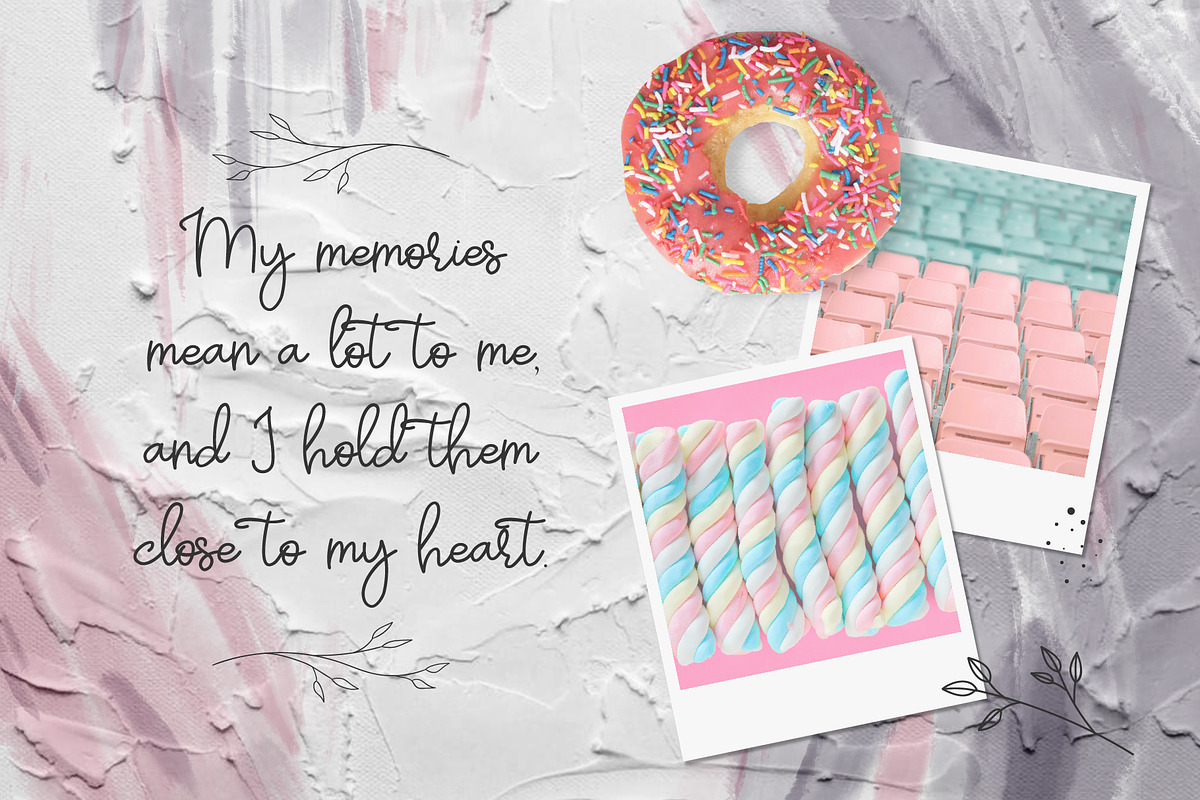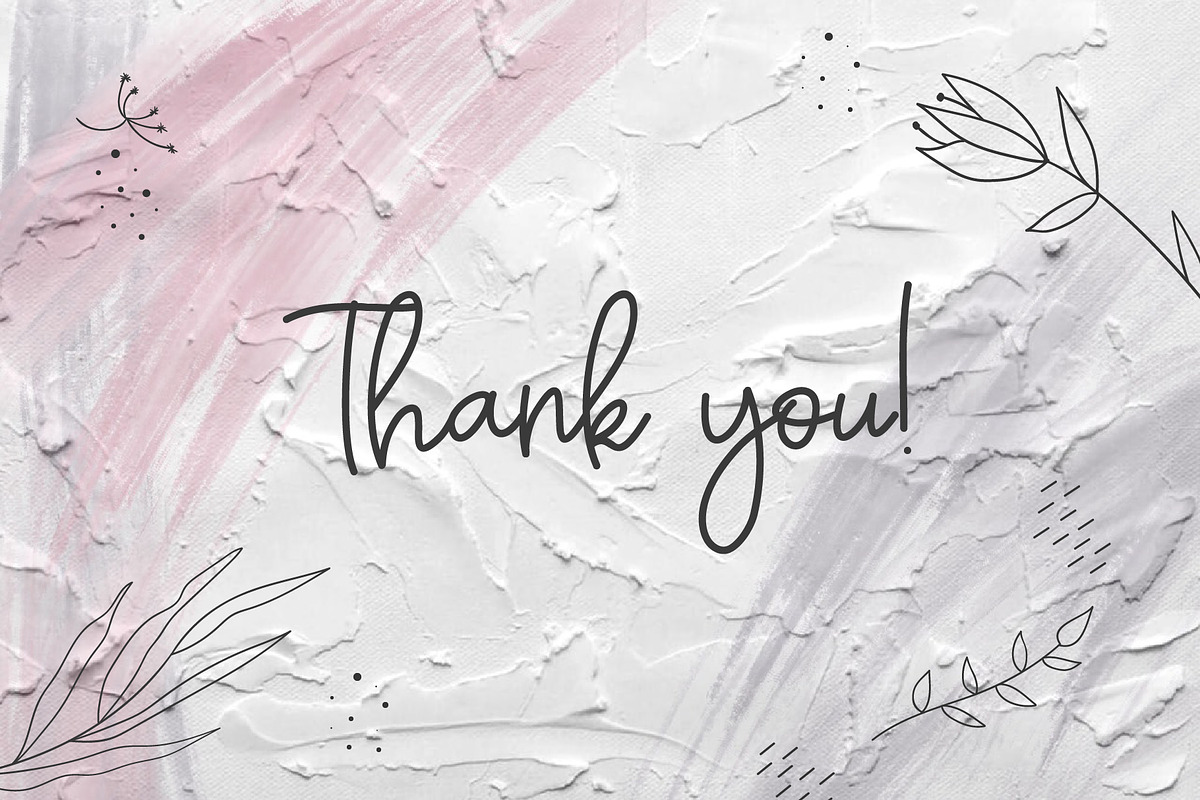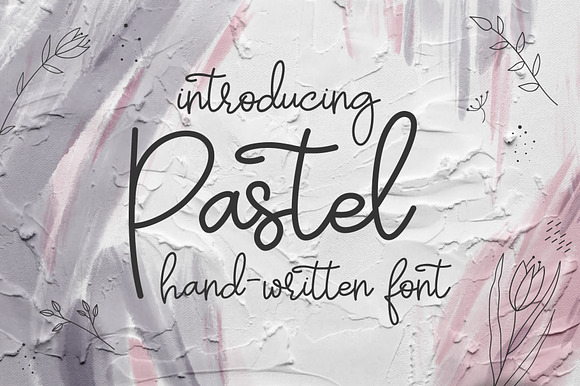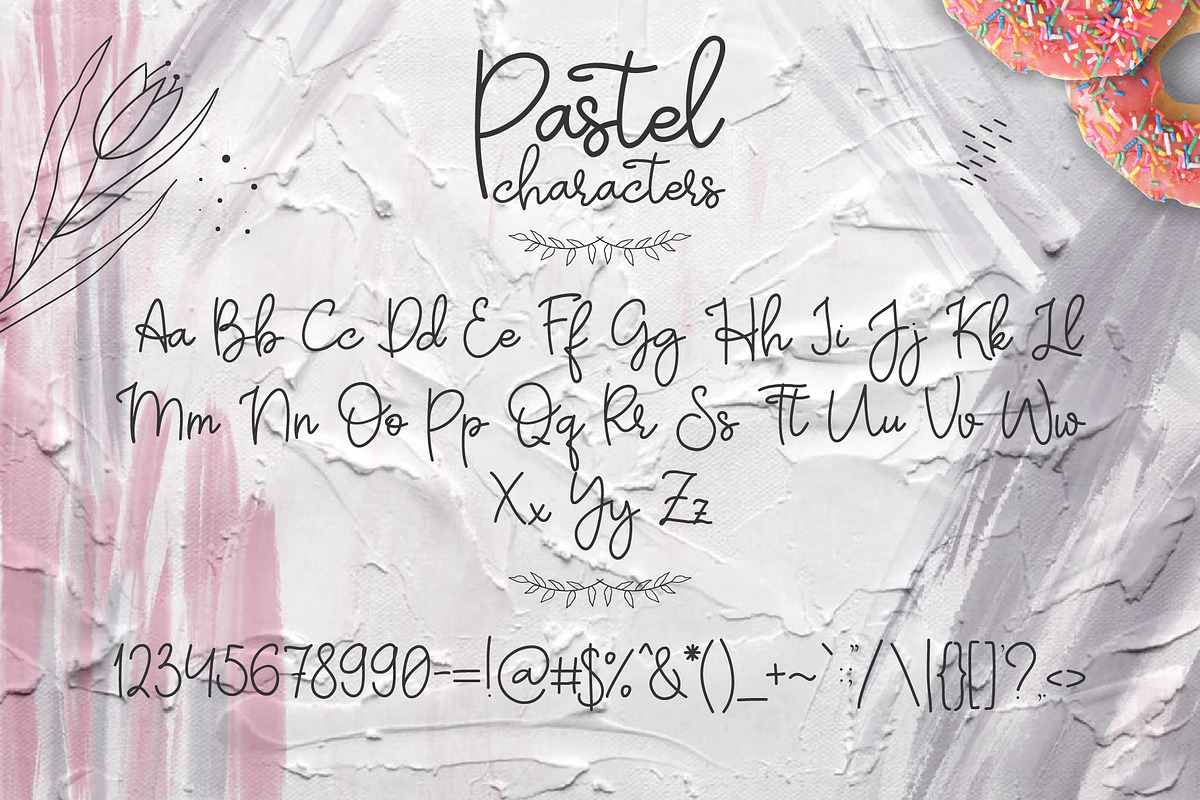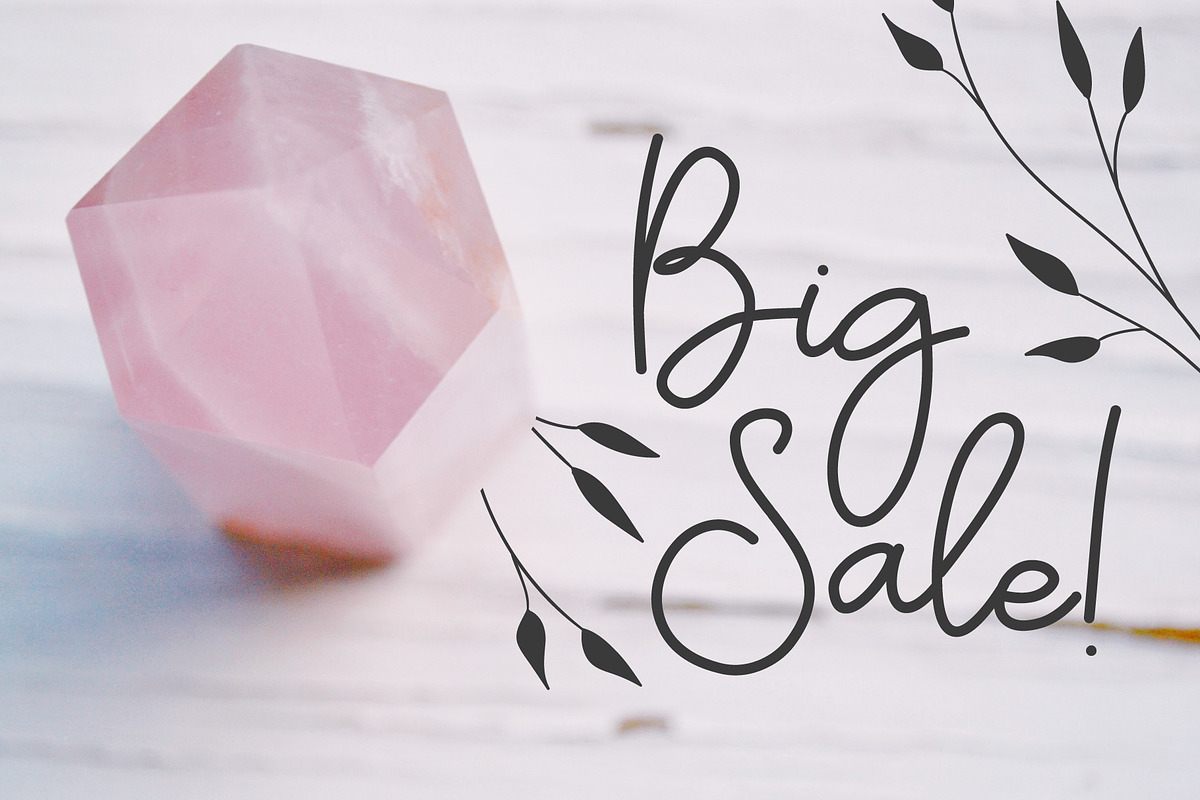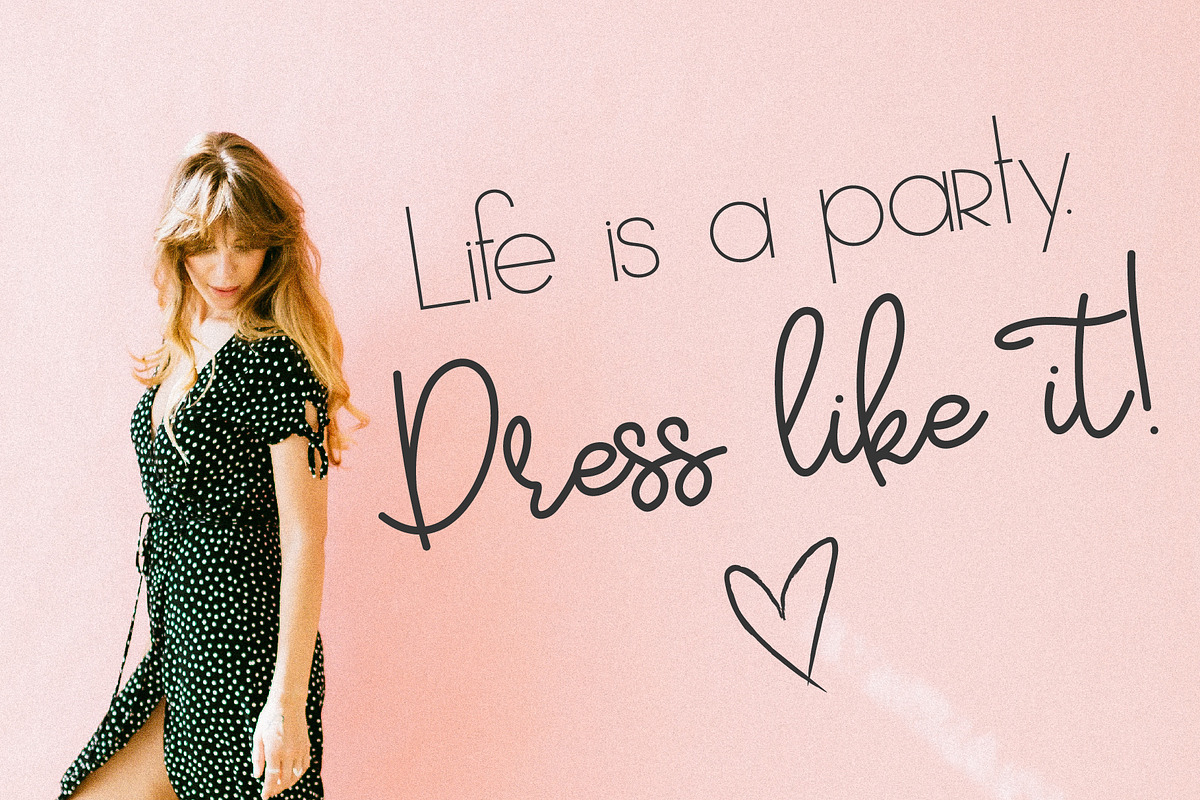
Pastel | hand-written font
Hello everyone! I am pleased to introduce my product - Pastel font This is a simple handwritten font with clean lines. This font well suited for titles, quotes, phrases, signatures and branding. Also it would look great in logos, invitations, labels, heading and posters You don't need any additional programs to use this font. Just install the font and enjoy!